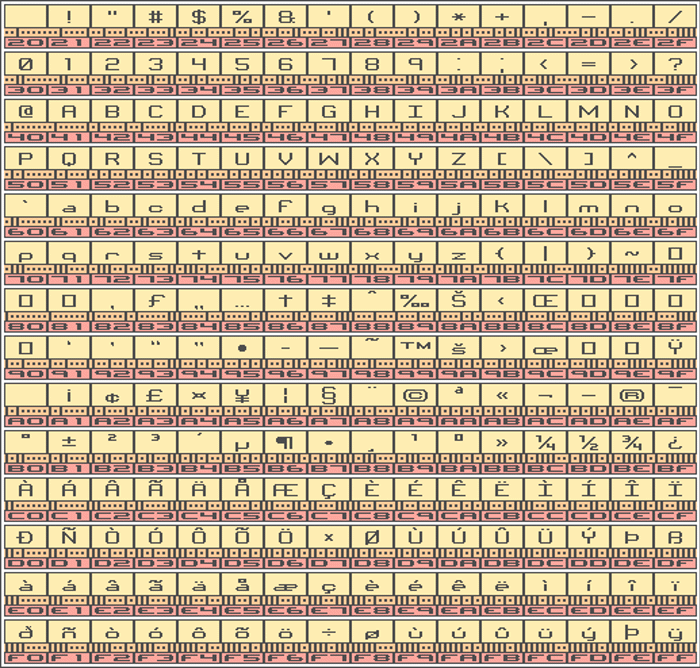
Binary BRK Font
Binary BRK Style
Binary CHR BRK Style
Binary X 01s BRK Style
Binary X BRK Style
Binary X CHR BRK Style
Each character in this font has 3 sections
1] TOP - Displays the Character of the font (ABC123, ect...)
2] MIDDLE - Displays the Binary Value of the character. In the font,
Dots are ZEROS '0' and Lines are ONES '1'.
3] BOTTOM - Displays the HEX Value of the character.
EXAMPLE:
________
| |
| Z | <- CHARACTER
|______|
01011010 <- BINARY VALUE
|¯¯¯¯¯¯|
| 5A | <- HEX VALUE
|______|